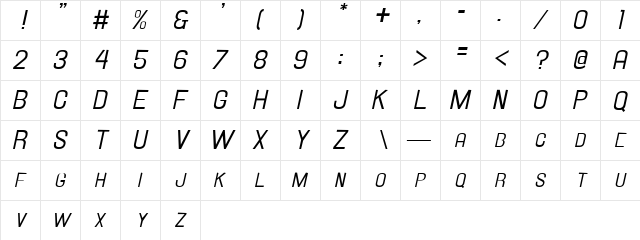
Complete Hallandale Sm. Caps It. JL Regular glyph index. Displaying only characters natively supported by Hallandale Sm. Caps It. JL Regular font.
Hallandale Sm. Caps It. JL is a composed and adaptable typeface that performs quietly and consistently across a wide range of design contexts.